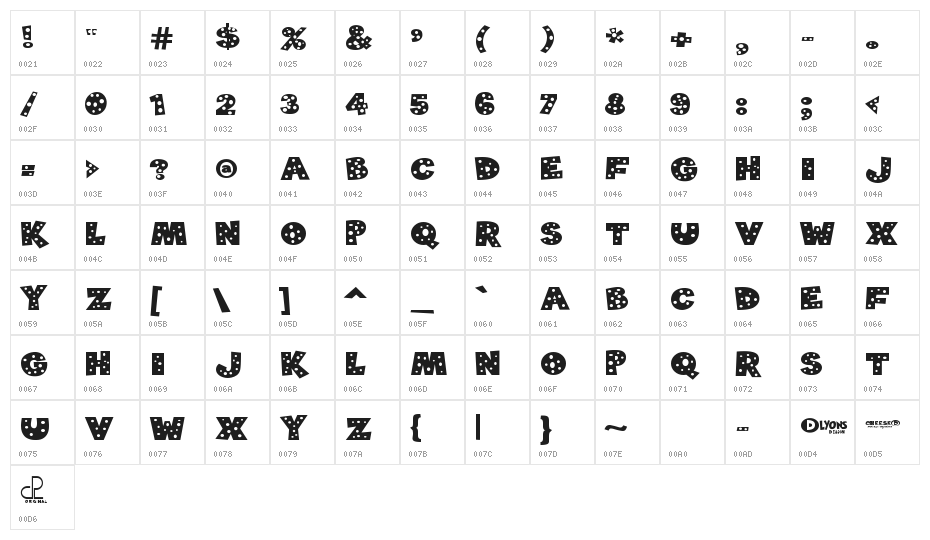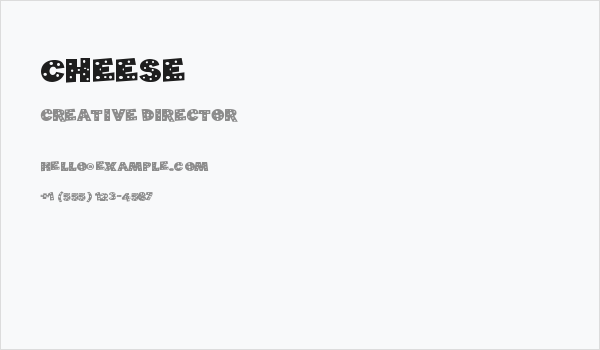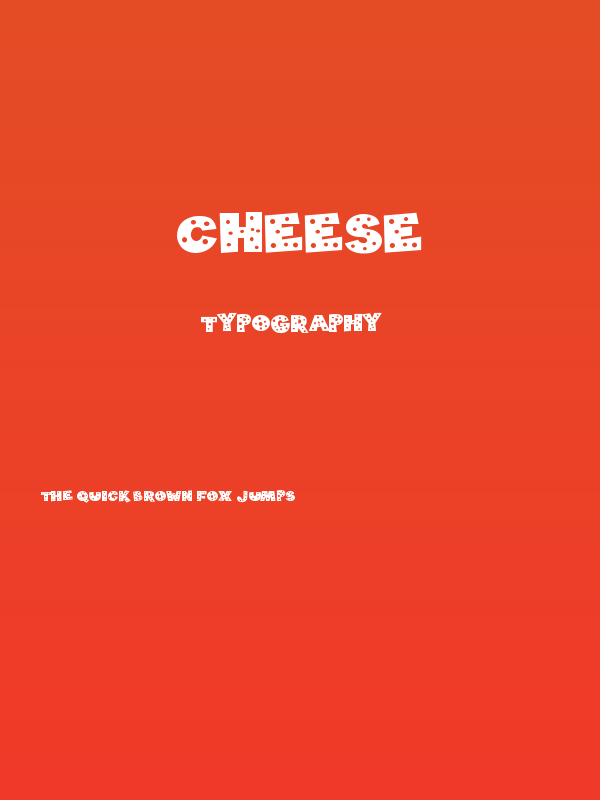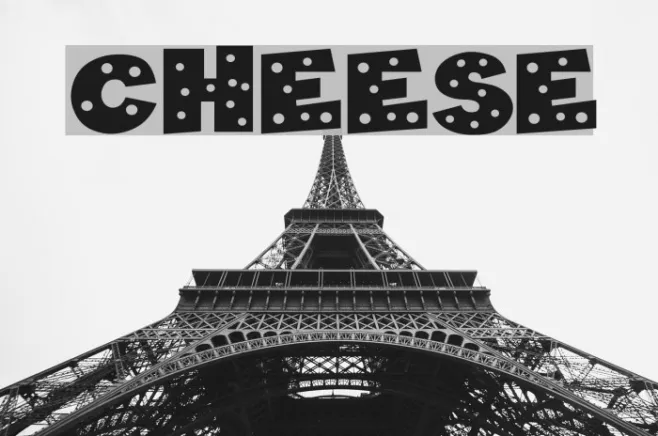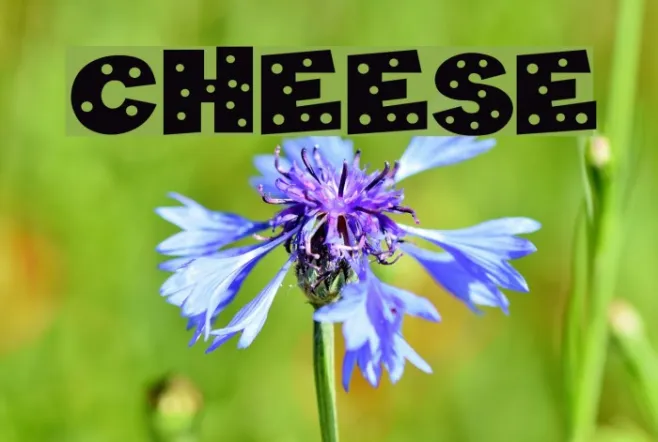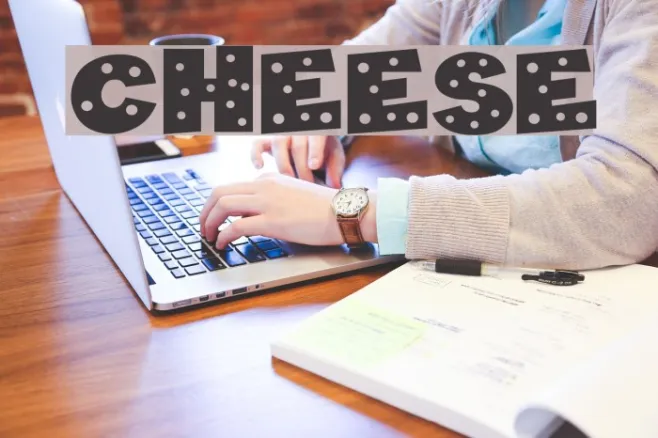
Cheese Font
Cheese Description
This playful and whimsical font features bold, uppercase and lowercase letters with a distinctive cheese-like appearance. The characters are filled with various-sized holes, mimicking the texture of Swiss cheese. The font is highly decorative, with a chunky and solid structure that makes it stand out. Its unique design is perfect for projects that require a fun and lighthearted touch. The numbers and special characters maintain the same playful style, ensuring consistency across all text elements.
| Proposed Projects | Ideal for children's books, food-related branding, playful posters, and party invitations. |